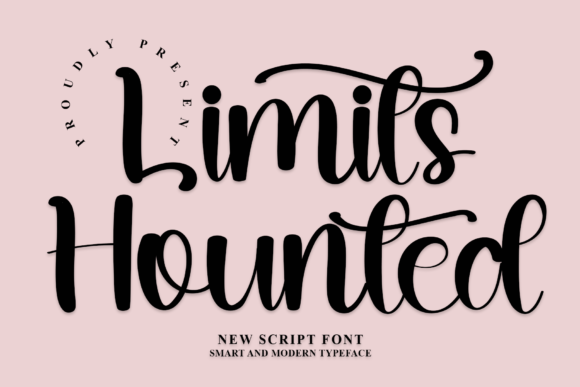
Welcome to the world of Limits Hounted, a captivating script font family that will transform your creative endeavors into visual masterpieces. Immerse yourself in the timeless beauty of handwritten calligraphy, meticulously crafted to bring a touch of elegance and sophistication to your designs.
Journey through a realm of possibilities with Limits Hounted, where each letter dances with grace and poise, seamlessly blending classic charm with a modern twist. Explore the depths of your imagination and let your words take on a new life, adorned with the exquisite artistry of this remarkable font.
Limits Hounted is not just a font; it's an experience. Its carefully balanced strokes and varied letterforms create a harmonious ensemble, captivating the eyes and stirring the emotions. With every word you type, you'll feel the weight of history and the excitement of the future collide, creating a timeless masterpiece that transcends the boundaries of time.
Unleash your creativity and explore the endless possibilities of Limits Hounted. Whether you're designing wedding invitations, crafting logos, creating social media graphics, or embarking on any other creative pursuit, this font will elevate your work to new heights.
Don't settle for ordinary fonts that blend into the background. Embrace the allure of Limits Hounted, where every letter tells a story and every word carries a profound impact. Let your designs radiate with personality, charm, and a touch of timeless elegance.
Embark on a creative journey with Limits Hounted today and discover the transformative power of truly exceptional typography. Experience the magic of handwritten calligraphy, reimagined for the modern era.